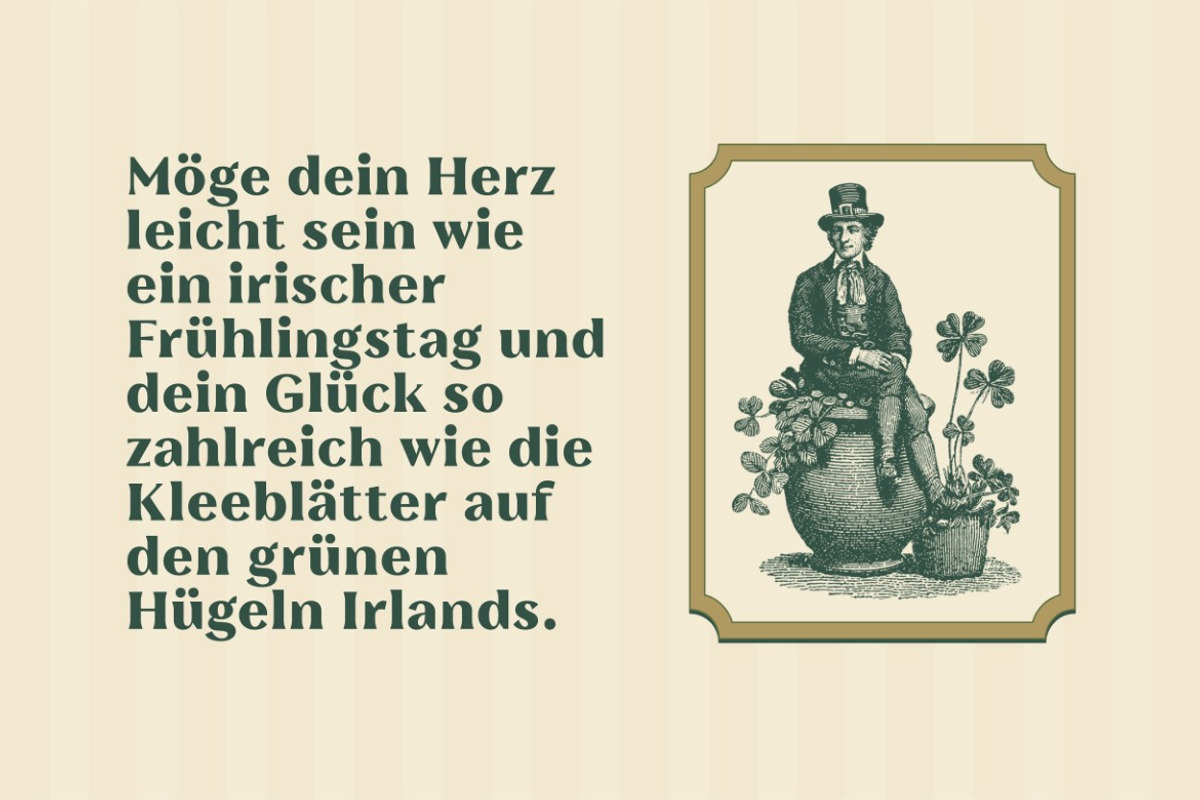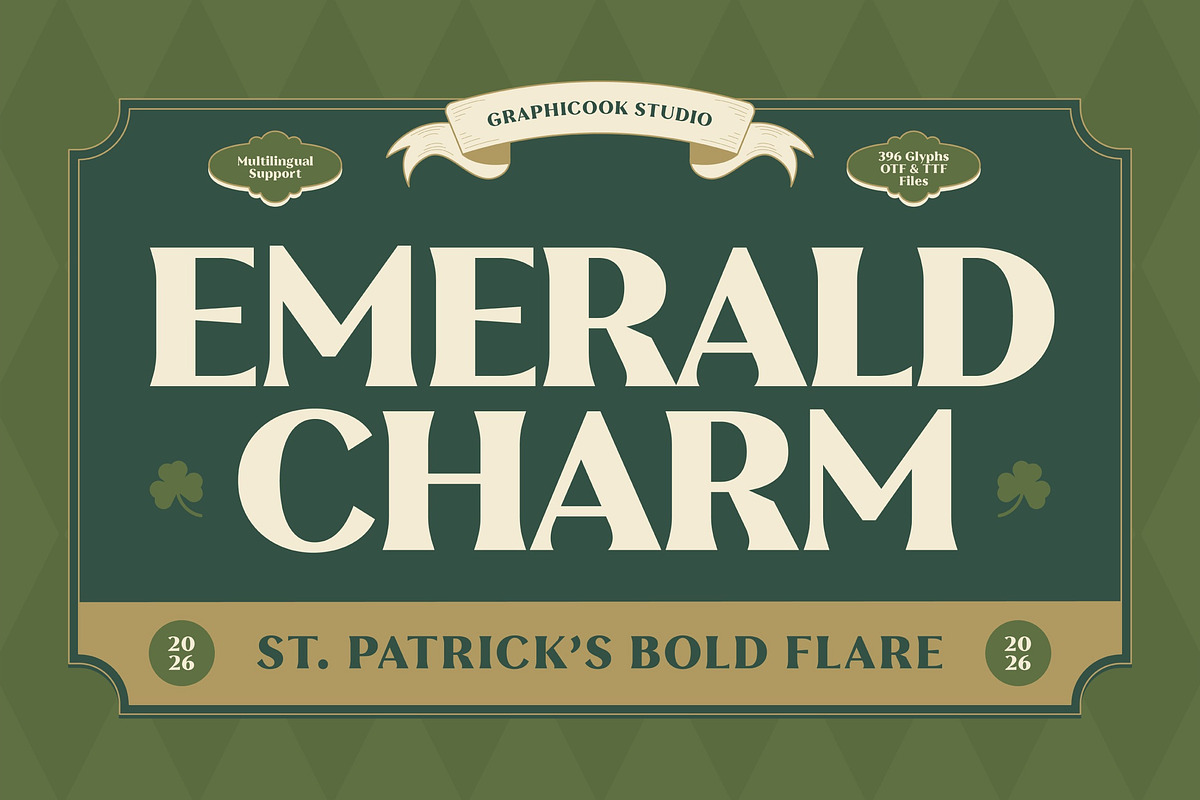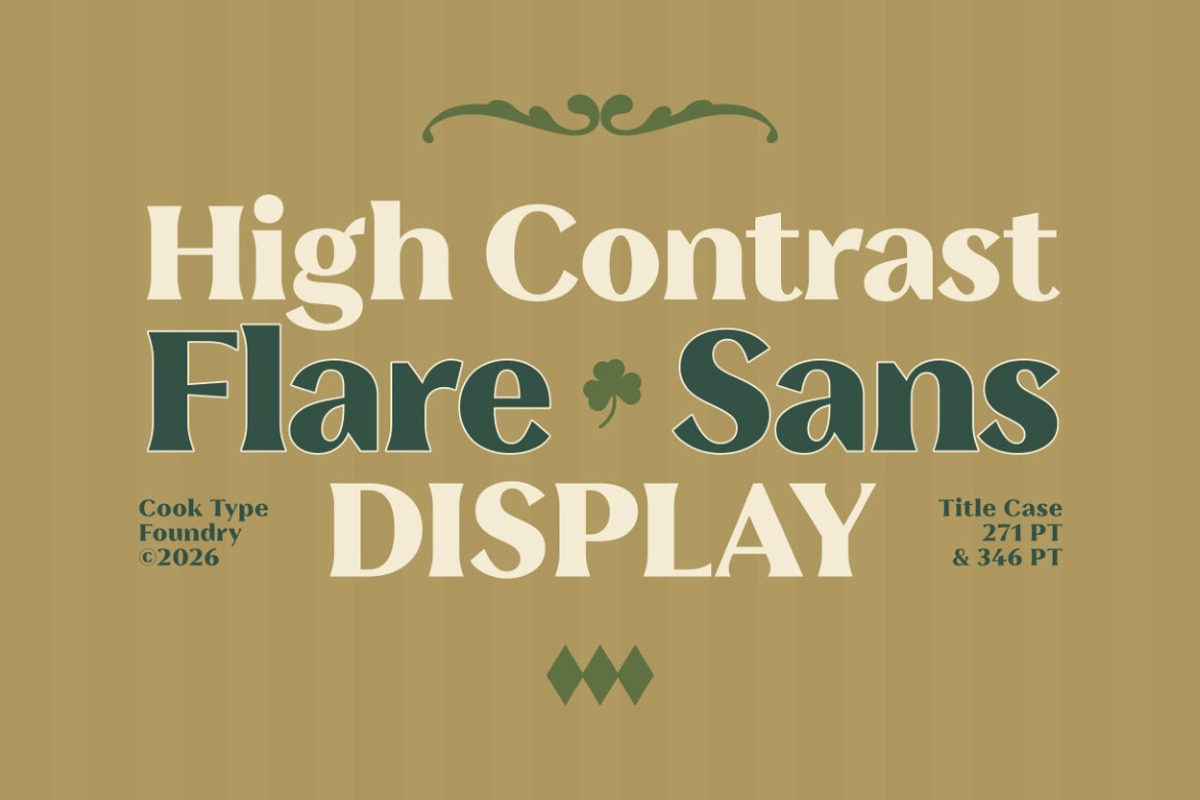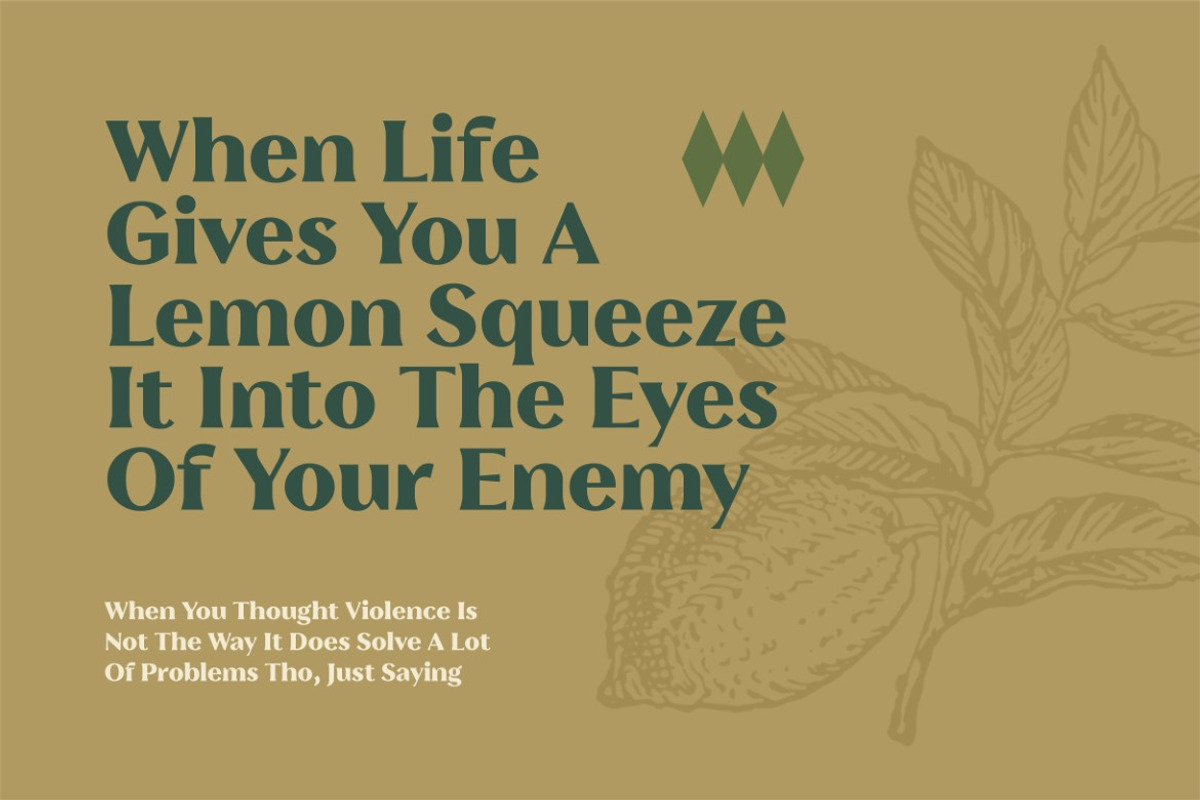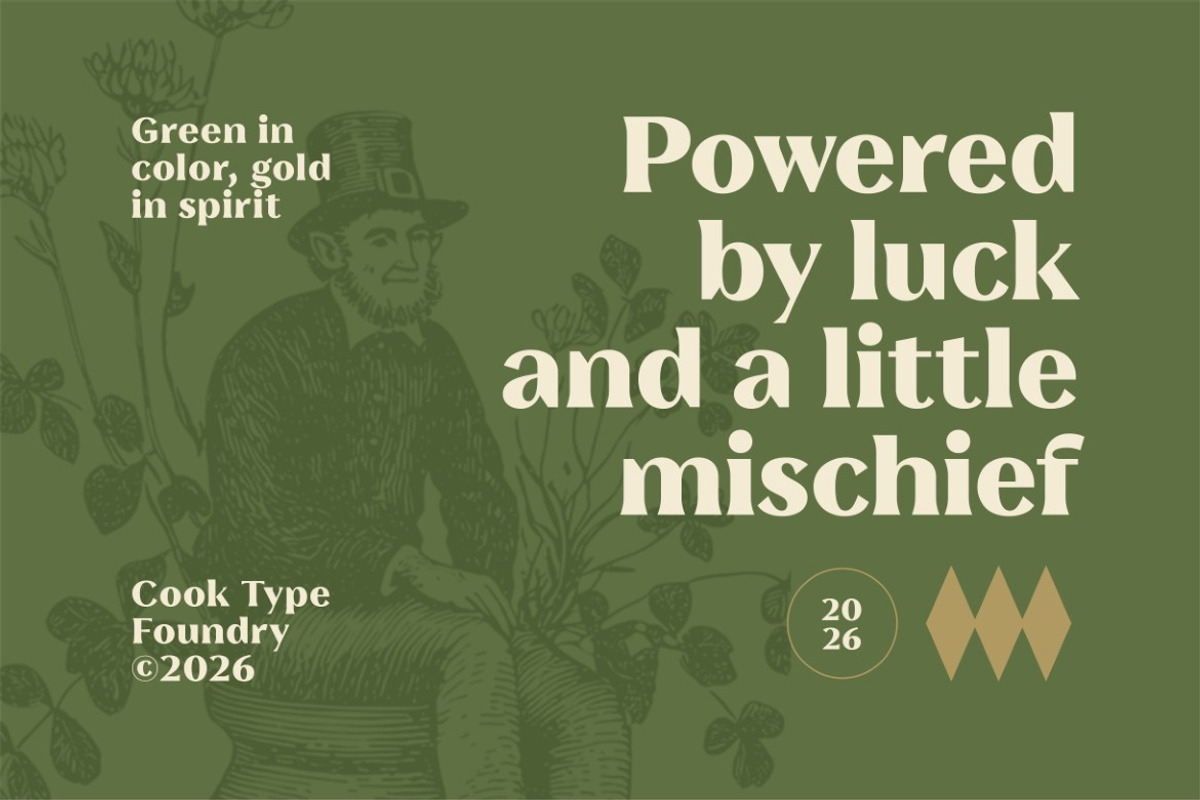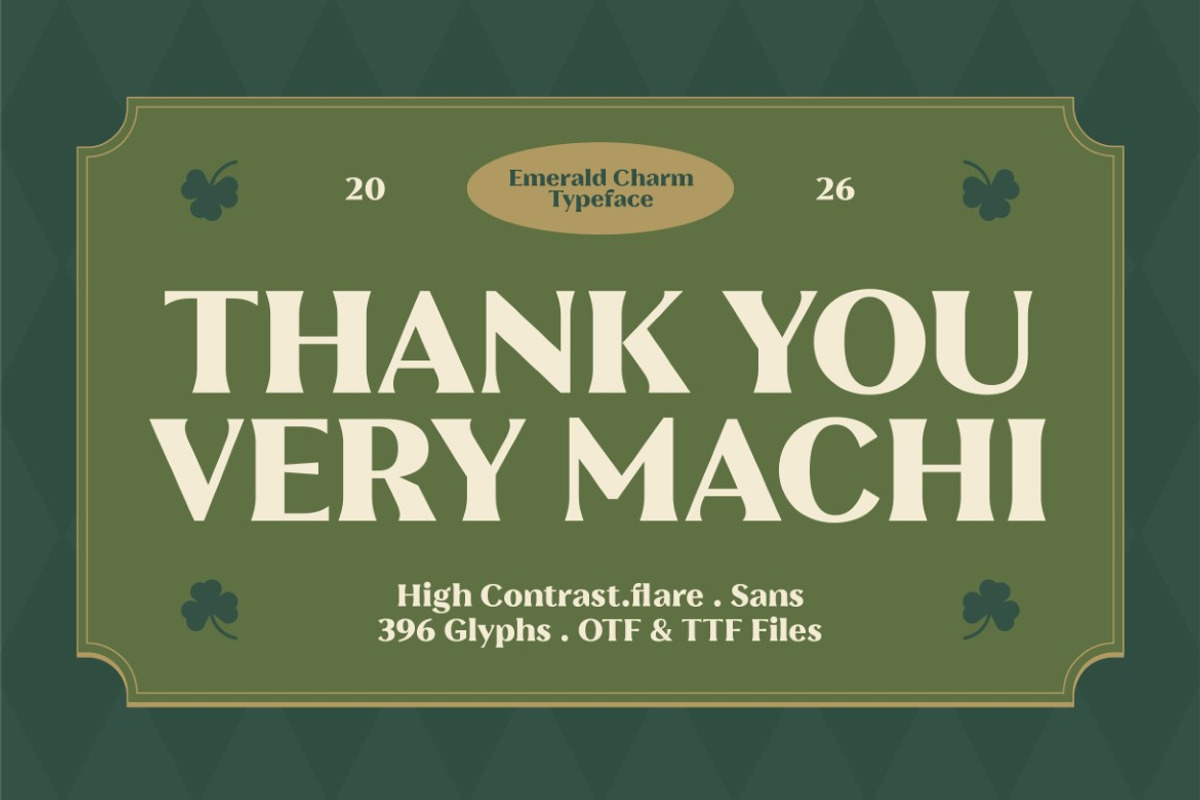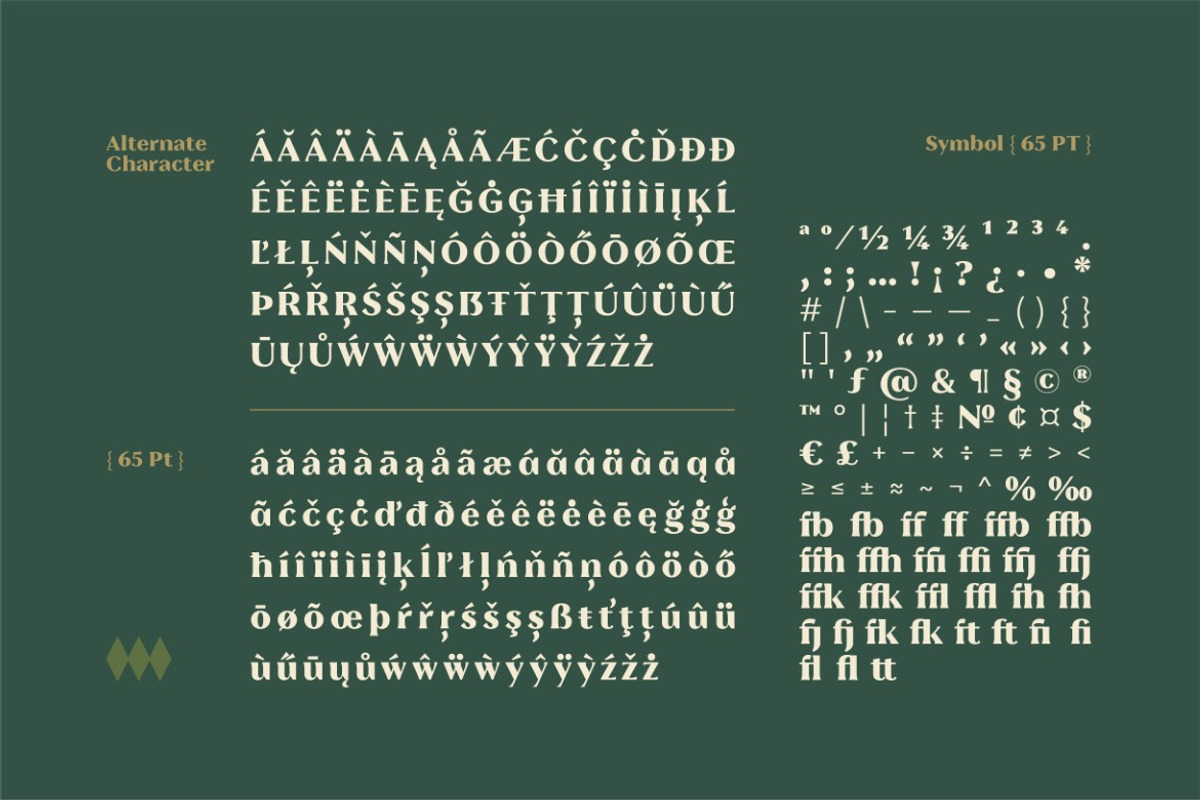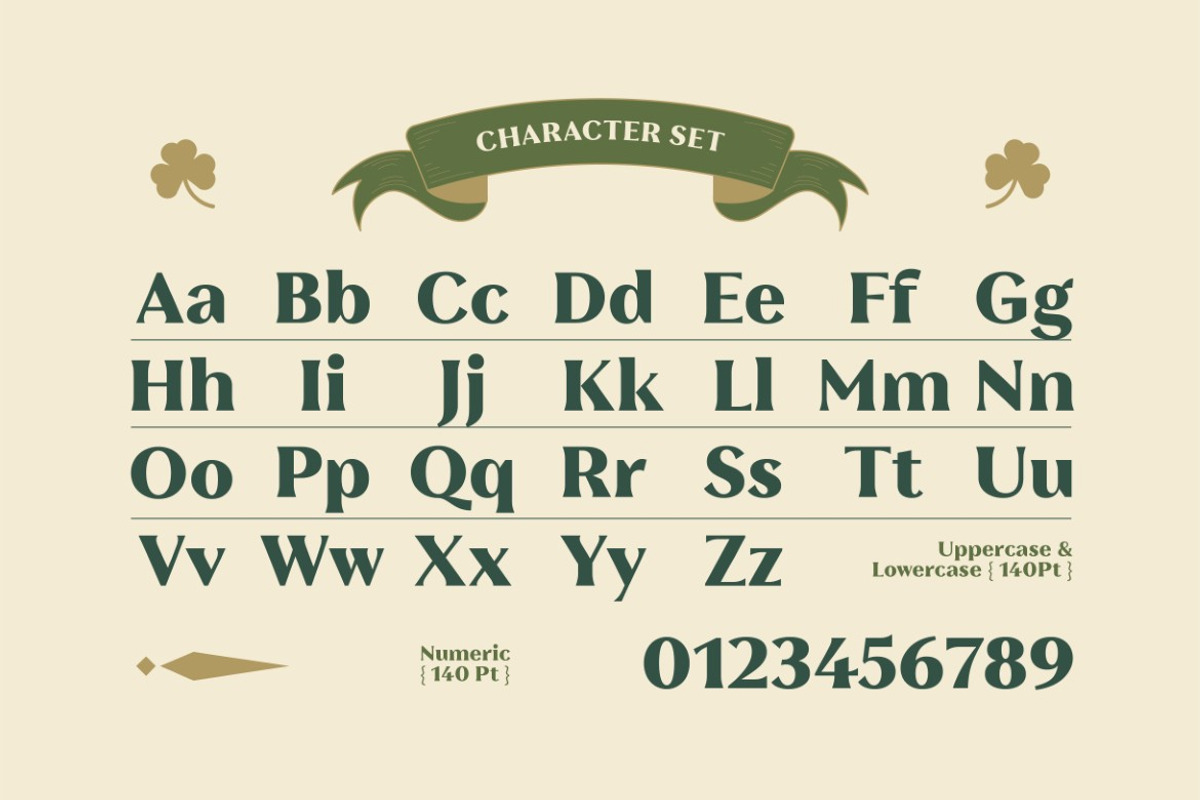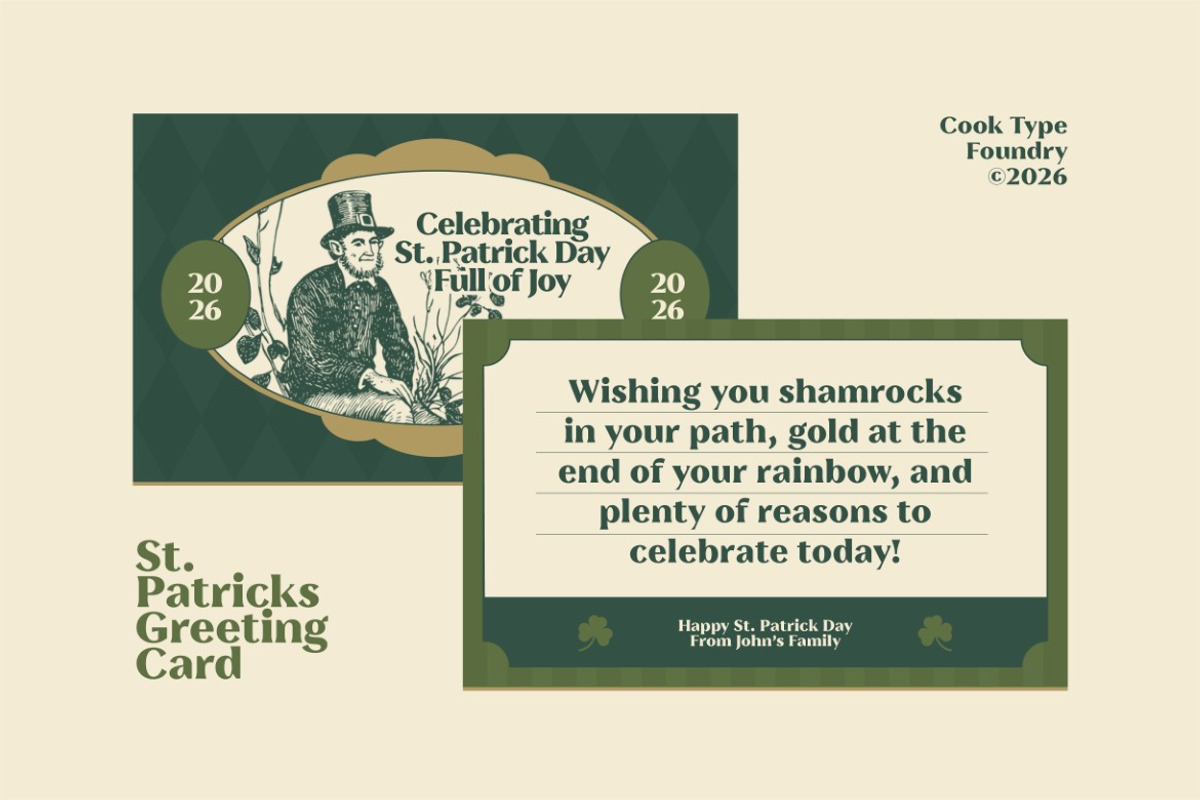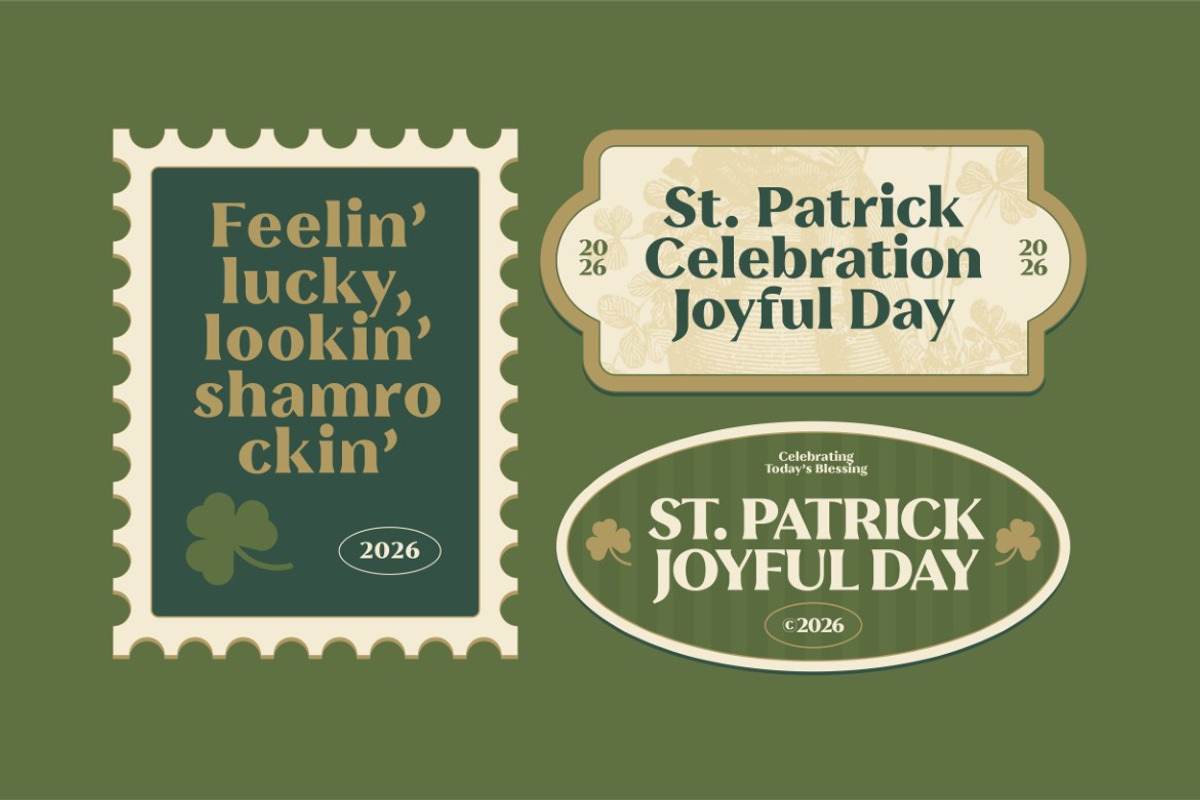
Emerald Charm
Emerald Charm is a vintage serif display font inspired by classic Irish aesthetics and the festive spirit of St. Patrick’s Day. Featuring bold, elegant, and decorative letterforms, it’s perfect for designs that aim to convey a traditional, refined, and characterful look.
It is perfect for headlines, logotypes, magazines, packaging, quotes, movies, games, cover albums, book covers, and flyers, it's a perfect solution for creating eye-catching designs that stand out in any context.